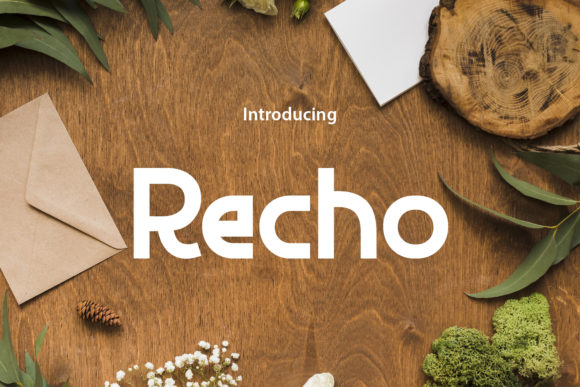
Unleash your creativity with Recho, the font that captivates, communicates, and connects. A minimalist sans serif masterpiece, Recho seamlessly blends simplicity with elegance, effortlessly elevating your designs to new heights. Its clean lines, sharp angles, and balanced proportions create a visually striking presence that demands attention.
With Recho, your words become art. Its meticulously crafted characters dance across the page, inviting readers on a visual journey. Each letterform is a testament to the power of typography, conveying emotions and messages with unparalleled clarity. Whether it's a T-shirt design that speaks volumes or a logo that leaves a lasting impression, Recho empowers you to make a statement that resonates.
Embrace the versatility of Recho, a font that adapts effortlessly to any project. Its adaptability knows no bounds, whether you're crafting a minimalist website, designing a captivating poster, or creating eye-catching social media graphics. Recho seamlessly integrates into your creative vision, becoming an integral part of your design narrative.
With Recho, you unlock endless possibilities. Its minimalist aesthetic provides a clean canvas for your imagination to run wild. Whether you're a seasoned designer or just starting your creative journey, Recho empowers you to express yourself fully. Its user-friendly nature ensures a smooth and seamless experience, allowing you to focus on transforming your ideas into stunning realities.
Recho is more than just a font; it's a key to unlocking your creative potential. Its charm lies in its ability to elevate the ordinary into the extraordinary. Embrace the power of Recho and embark on a creative adventure where your designs shine with elegance and impact.